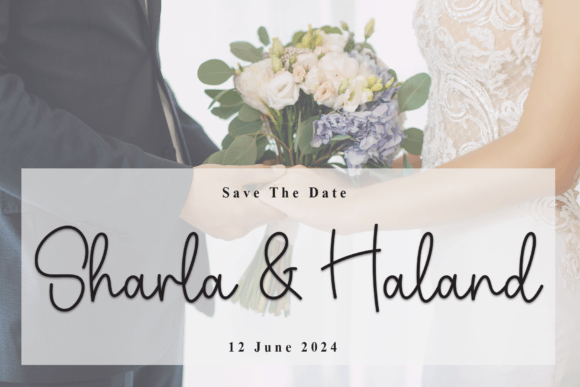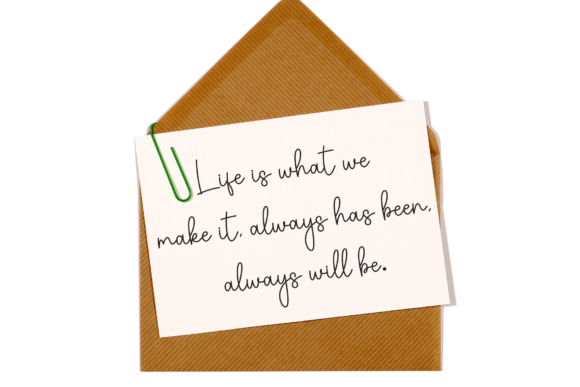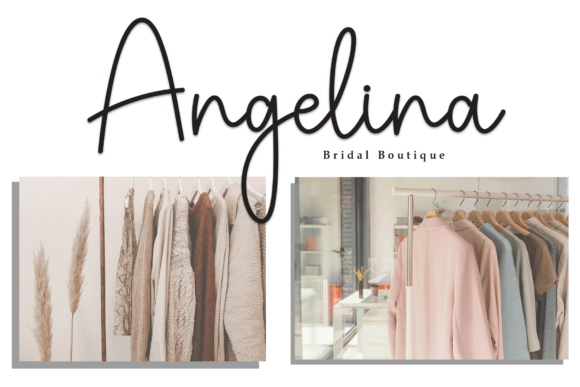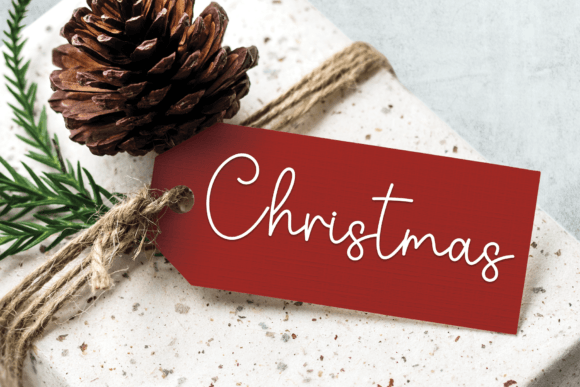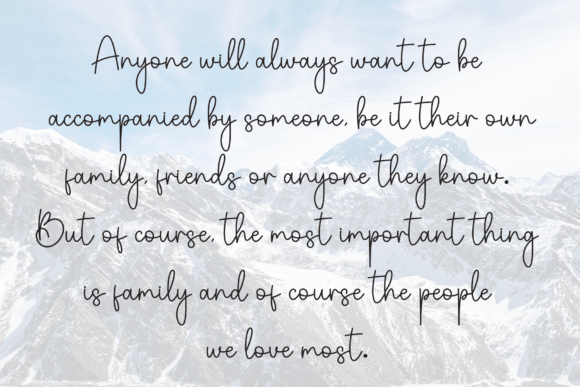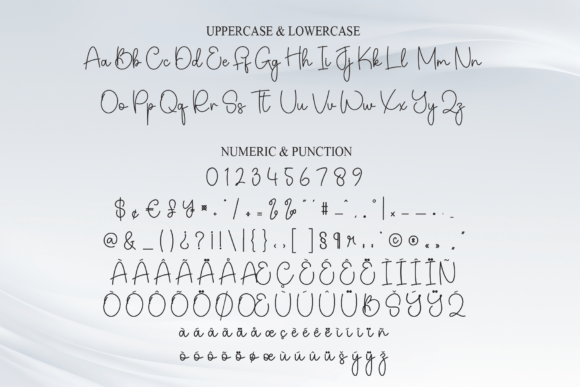
Elevate Your Designs with Graphic Script Fonts: A Comprehensive Guide
Are you a designer or crafter looking to add a touch of elegance and sophistication to your projects? Look no further than Graphic Script Fonts. This type of font is a popular choice for creating stylish and artistic text, and for good reason. In this article, we’ll explore the world of Graphic Script Fonts, their characteristics, and how to use them to take your designs to the next level.
What is a Graphic Script Font?
A Graphic Script Font is a type of font that mimics the look of handwriting with a pen. It features smooth, flowing letters that are connected to each other, creating a beautiful and fluid script. This type of font is perfect for adding a personal and artistic touch to your words, making it a popular choice for invitations, greeting cards, logos, and more.
Characteristics of Graphic Script Fonts
Graphic Script Fonts have several distinct characteristics that set them apart from other types of fonts. Some of the key features include:
- Smooth, flowing letters: Graphic Script Fonts feature letters that are connected to each other, creating a smooth and fluid script.
- Handwritten look: Graphic Script Fonts are designed to mimic the look of handwriting with a pen, giving them a personal and artistic touch.
- Elegant and sophisticated: Graphic Script Fonts are perfect for creating stylish and elegant text that’s sure to impress.
Uses for Graphic Script Fonts
Graphic Script Fonts are versatile and can be used in a variety of projects, including:
- Invitations: Graphic Script Fonts are a popular choice for wedding invitations, birthday invitations, and other special occasions.
- Greeting cards: Add a personal touch to your greeting cards with a Graphic Script Font.
- Logos: Graphic Script Fonts can be used to create elegant and sophisticated logos for businesses and brands.
- Signage: Graphic Script Fonts are perfect for creating eye-catching signage for events, businesses, and more.
Tips for Using Graphic Script Fonts
Here are some tips for using Graphic Script Fonts in your designs:
- Keep it simple: Graphic Script Fonts are best used in moderation. Keep your design simple and elegant to let the font shine.
- Choose the right color: Select a color that complements the font and adds to the overall aesthetic of your design.
- Experiment with different styles: Try out different Graphic Script Fonts and styles to find the one that works best for your project.
Popular Graphic Script Fonts
Some popular Graphic Script Fonts include:
Graphic Script Fonts are a powerful tool for designers and crafters looking to add a touch of elegance and sophistication to their projects. With their smooth, flowing letters and handwritten look, Graphic Script Fonts are perfect for creating stylish and artistic text. By following the tips outlined in this article, you can take your designs to the next level and create beautiful, eye-catching projects that are sure to impress.
Whether you’re creating invitations, greeting cards, logos, or signage, Graphic Script Fonts are a versatile and elegant choice. So why not give them a try and see the difference they can make in your designs?